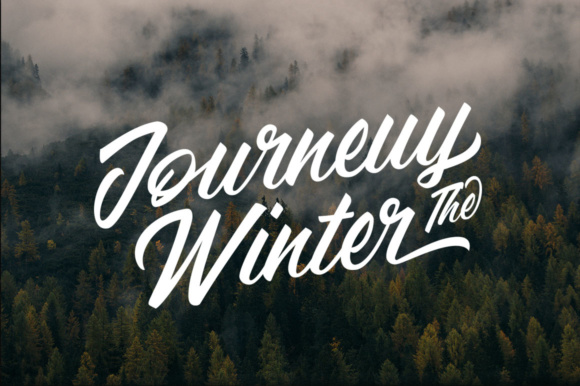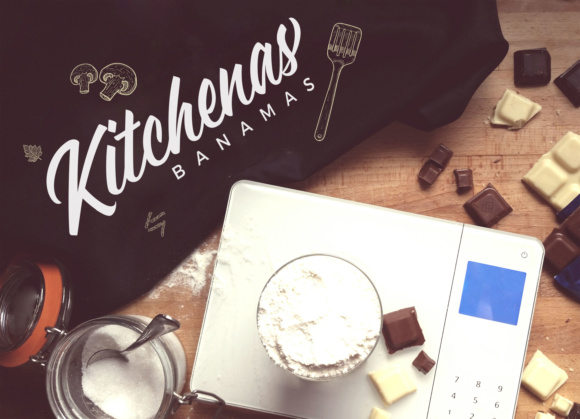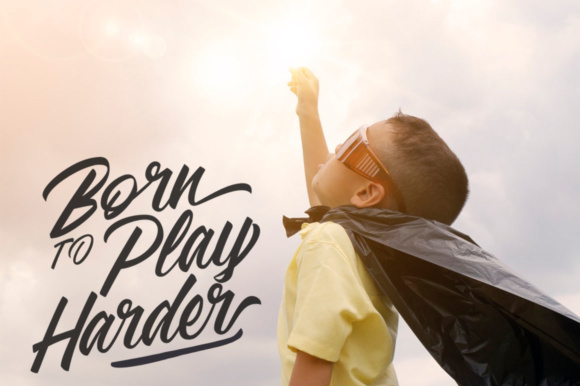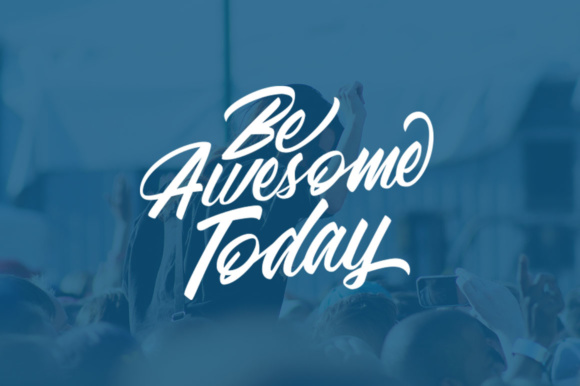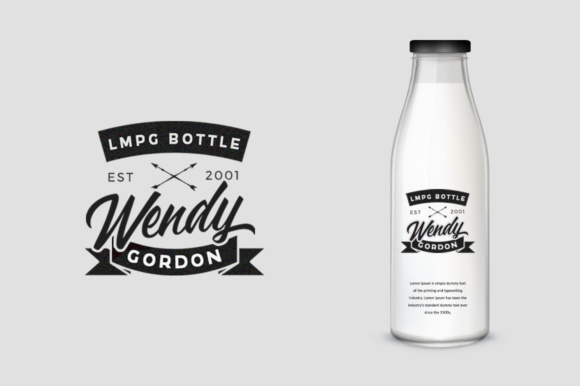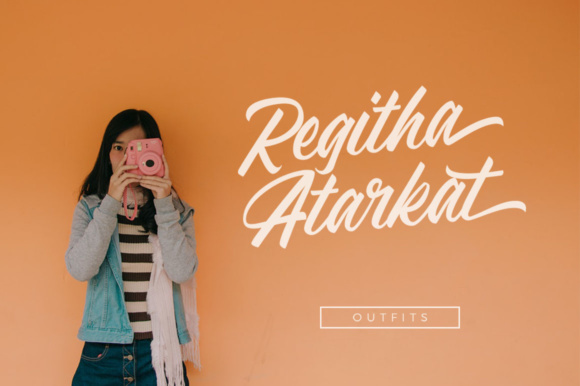
Discover the Charm of Adelaide Font: Elevate Your Designs with this Beautiful Display Script
Are you a designer or crafter looking for a unique and captivating font to add a touch of nostalgia to your creative projects? Look no further than the Adelaide Font. This stunning display script is perfect for a wide range of applications, from headlines and titles to branding and advertising. In this article, we’ll explore the features and benefits of the Adelaide Font, and show you how to make the most of this beautiful typeface.
The Characteristics of Adelaide Font
The Adelaide Font is a beautifully weighted display script that exudes elegance and sophistication. Its flowing curves and smooth lines make it perfect for use in display or headline applications, where a bold and eye-catching font is needed. The font’s classic design ensures that it will never go out of style, making it a great choice for designers who want to create timeless and memorable designs.
One of the standout features of the Adelaide Font is its versatility. It can be used in a wide range of projects, from luxury branding and advertising to packaging and editorial design. The font’s unique charm and character make it perfect for adding a touch of personality to your designs, and its excellent legibility ensures that it will be easy to read, even at smaller sizes.
The Benefits of Using Adelaide Font
So why choose the Adelaide Font for your next design project? Here are just a few of the benefits of using this beautiful display script:
- Add a touch of nostalgia: The Adelaide Font has a classic, vintage feel that is perfect for designers who want to add a touch of nostalgia to their designs.
- Elegant and sophisticated: The font’s flowing curves and smooth lines make it perfect for use in luxury branding and advertising applications.
- Versatile: The Adelaide Font can be used in a wide range of projects, from display and headline applications to packaging and editorial design.
- Excellent legibility: The font’s clear and simple design ensures that it will be easy to read, even at smaller sizes.
How to Use Adelaide Font in Your Designs
So how can you make the most of the Adelaide Font in your designs? Here are a few tips and ideas to get you started:
- Use it as a headline or title font: The Adelaide Font is perfect for use in headlines and titles, where a bold and eye-catching font is needed.
- Add a touch of elegance to your branding: The font’s classic design makes it perfect for use in luxury branding applications, such as logos and packaging.
- Mix it with other fonts: The Adelaide Font can be paired with a wide range of other fonts to create a unique and eye-catching design.
- Experiment with different colors and textures: The font’s versatility means that it can be used with a wide range of colors and textures to create a truly unique design.
In conclusion, the Adelaide Font is a beautiful and versatile display script that is perfect for use in a wide range of design projects. Its classic design, elegant curves, and excellent legibility make it a great choice for designers who want to add a touch of nostalgia and sophistication to their designs. Whether you’re a designer, crafter, or simply someone who appreciates beautiful typography, the Adelaide Font is definitely worth checking out.